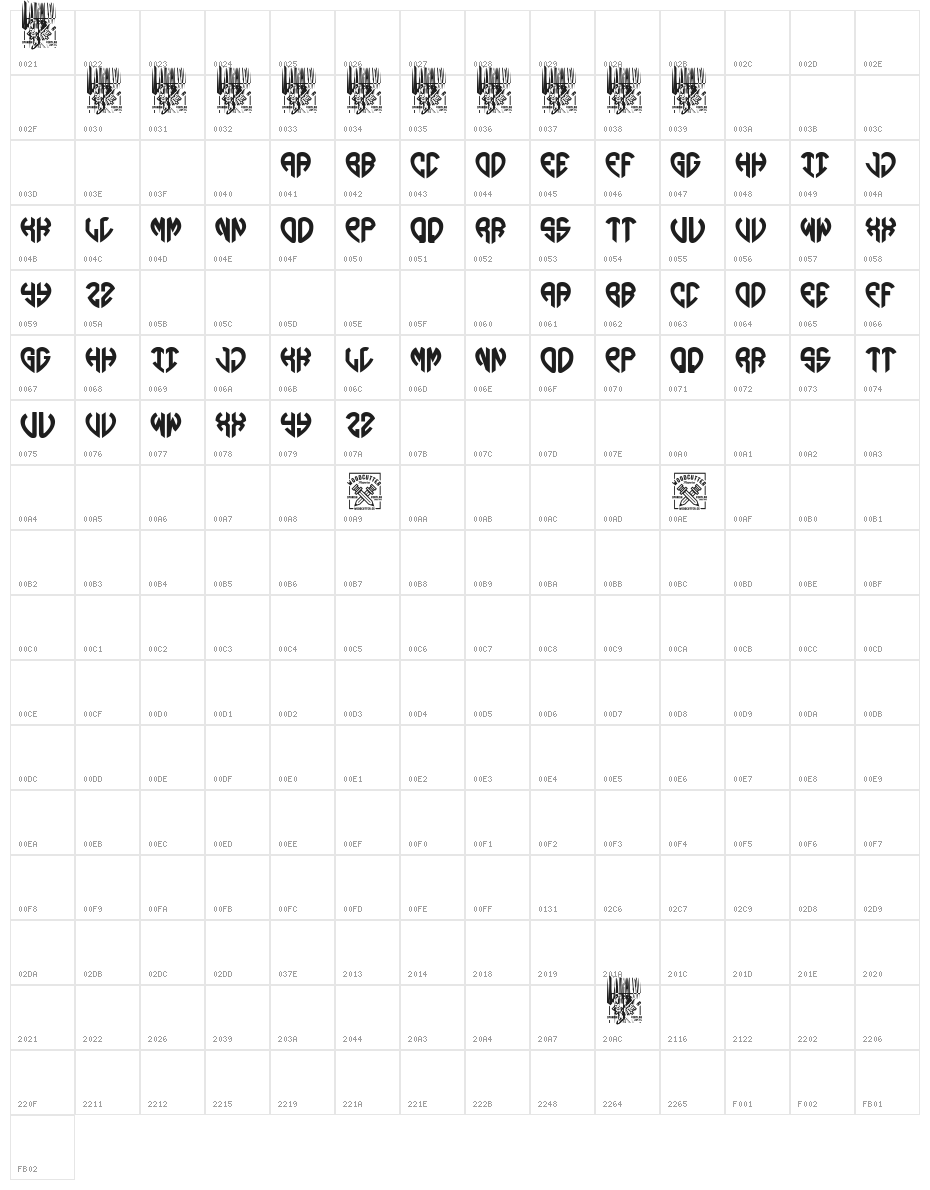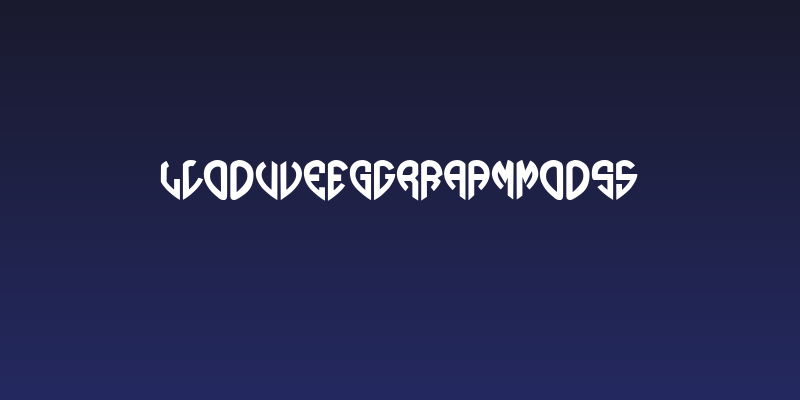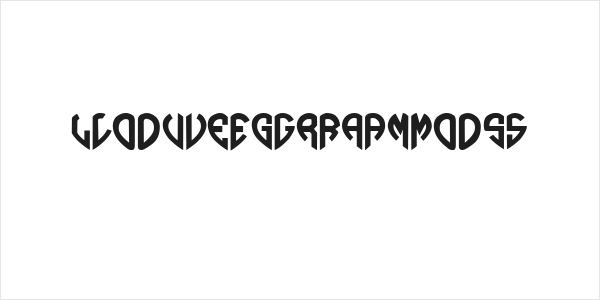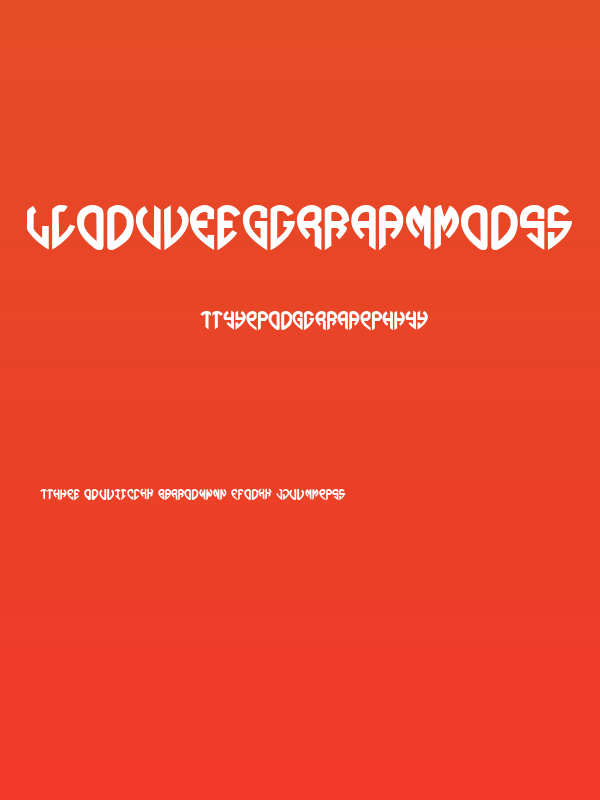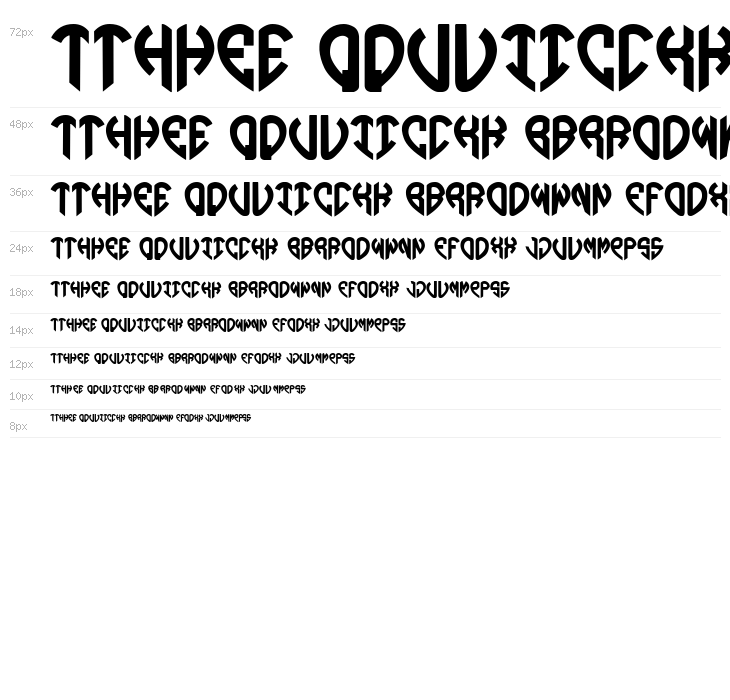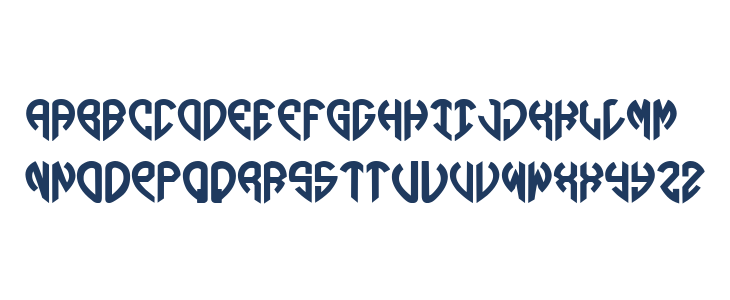
Lovegramos Font
Lovegramos Description
This font features a bold and geometric design with sharp angles and a strong presence. The characters are constructed with a unique blend of straight lines and pointed edges, creating a modern and edgy look. The uppercase letters are particularly striking, with a consistent width and height that gives the font a uniform appearance. The lowercase letters maintain the same angular style, ensuring cohesion throughout the typeface. Numbers and special characters are designed with the same attention to detail, making this font versatile for various applications. The overall aesthetic is reminiscent of industrial or futuristic themes, making it suitable for projects that require a bold and impactful visual statement.
| Proposed Projects | Ideal for branding, logos, posters, and any design requiring a strong, modern aesthetic. |